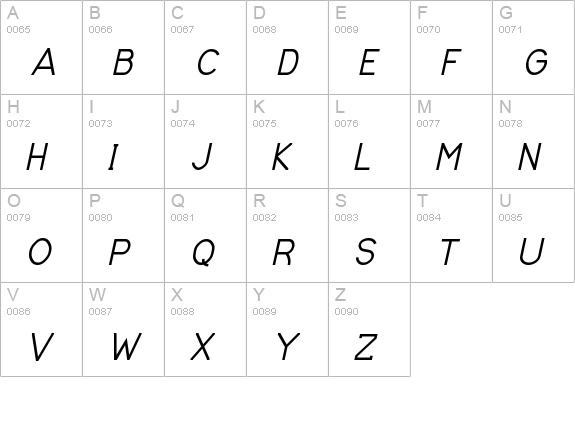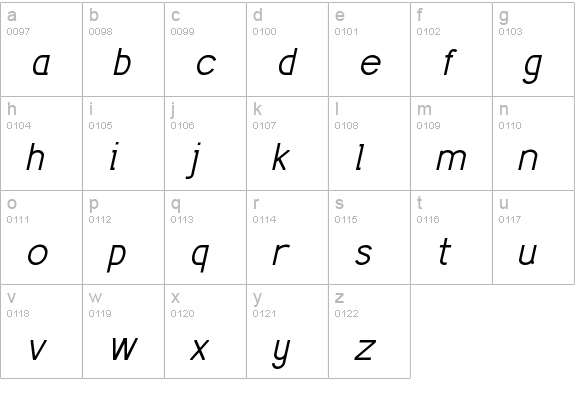
Dude Italic Font Details
Dude Italic is a distinctive, italic variant in the Dude typeface family \xE2\x80\x94 well suited to design and typography projects.
Dude Italic font exudes a cool and casual vibe with its slanted and stylish letterforms. This modern and versatile typeface is perfect for adding a touch of sophistication to any design project. The italicized characters offer a sleek and dynamic appearance, making it ideal for creating eye-catching headlines, titles, and branding materials. What makes Dude Italic font even more appealing is that it is available for free download at FontsMarket.com. Whether you're a designer looking to elevate your typography game or a business owner seeking a fresh look for your marketing materials, Dude Italic font is a fantastic choice. Don't miss out on the opportunity to enhance your projects with this trendy and accessible typeface.